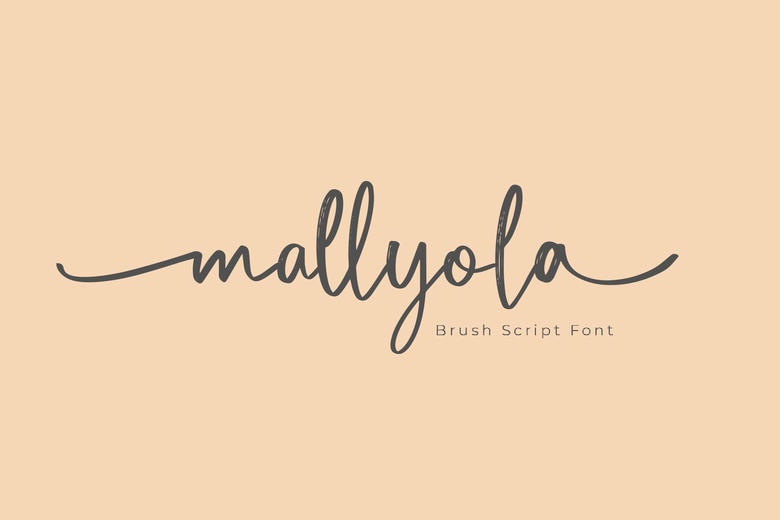
Mallyola Font
Mallyola is a new script font that is original and outstanding with handbrushed flourishes which add the craft and uniqueness to the project. Mallyola has different character shapes that give style and energy in product labeling, product packing, cards invitation and many others.
Mallyola Brush Script Font